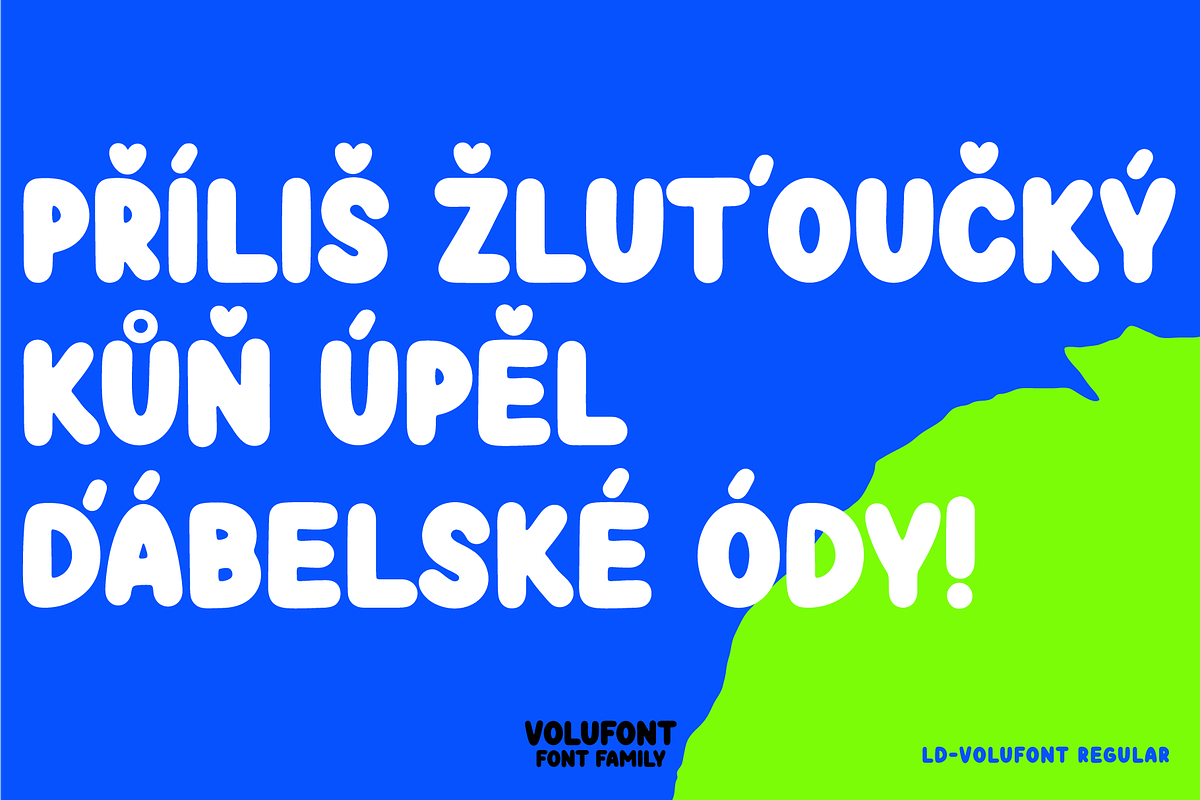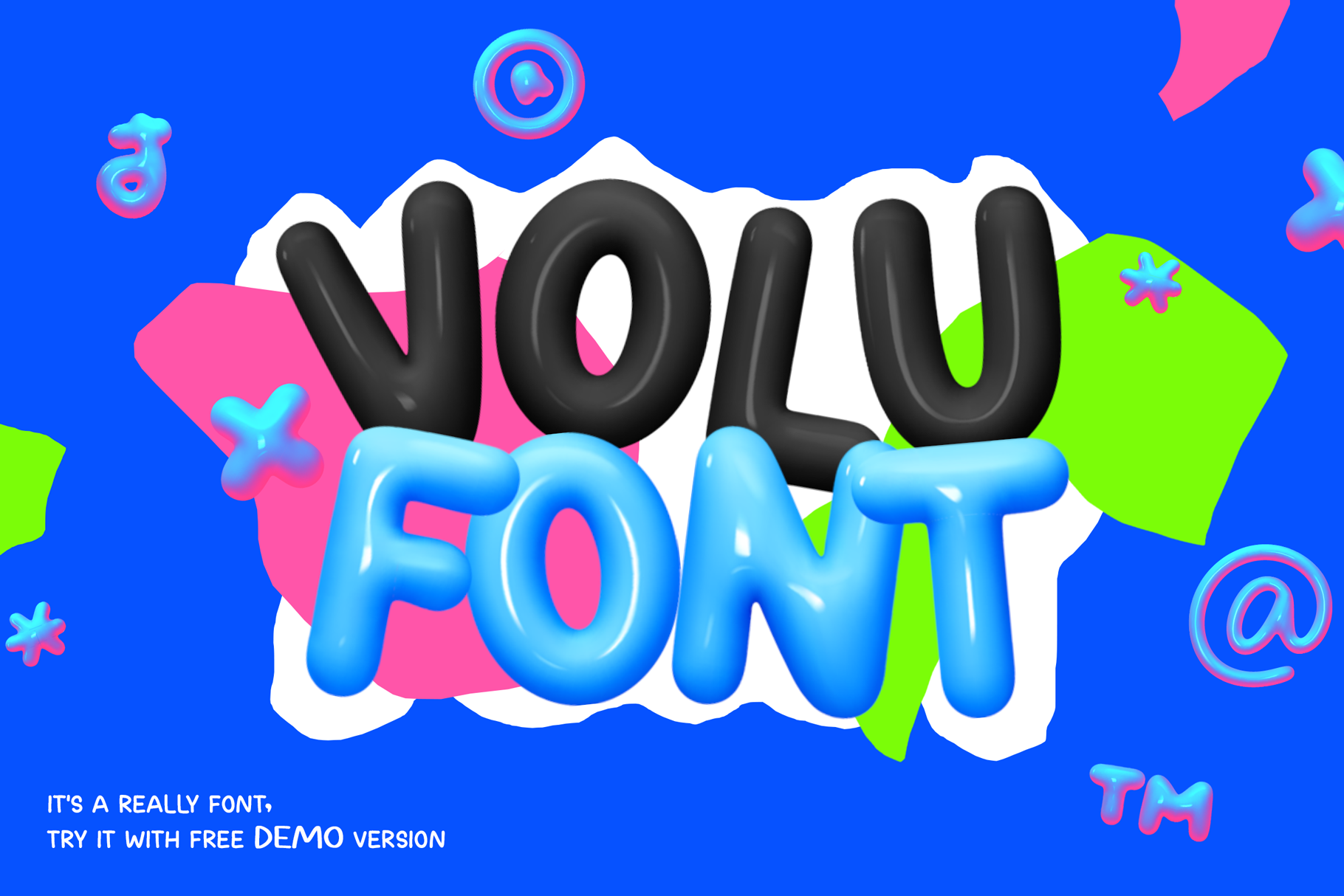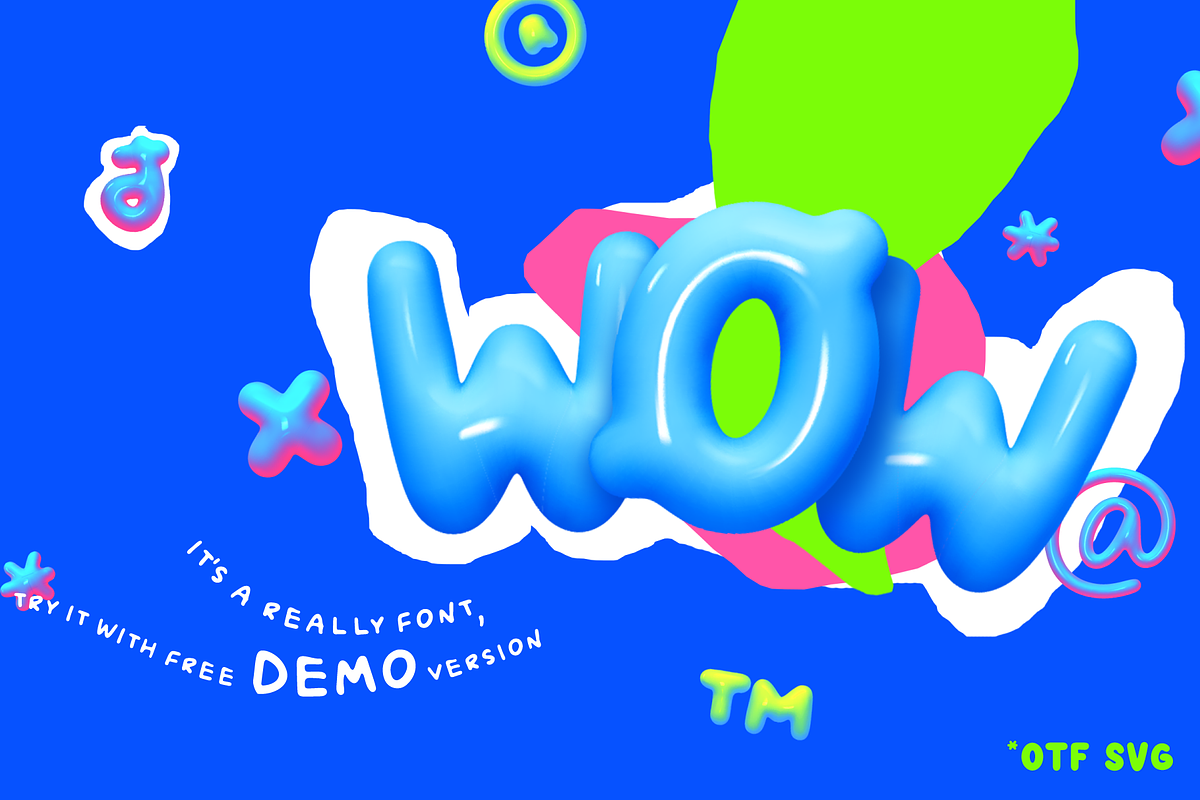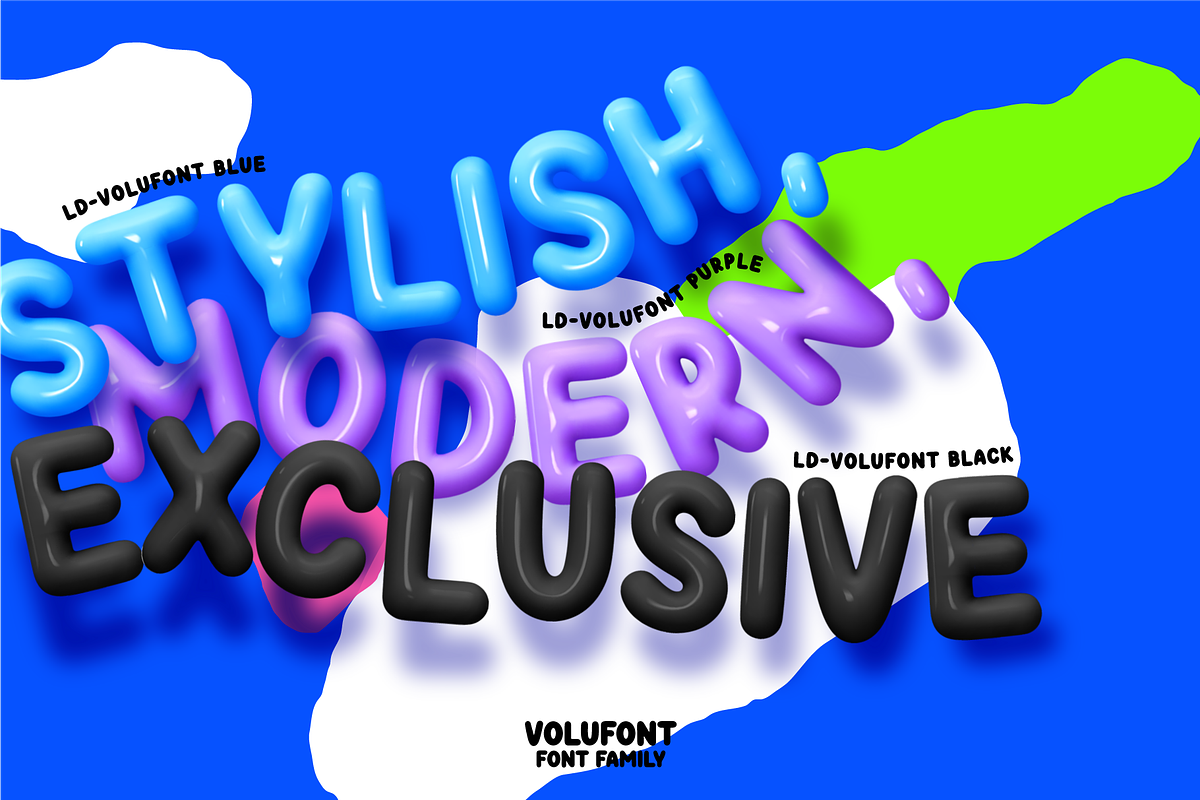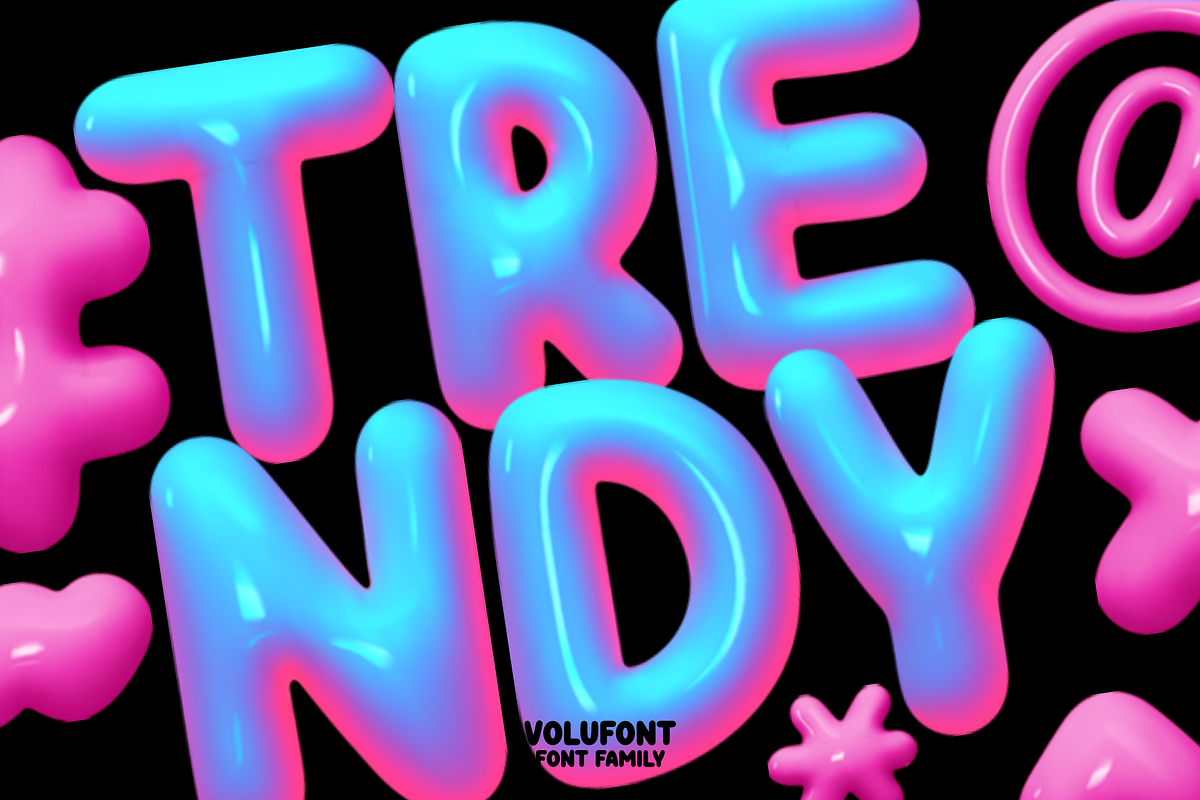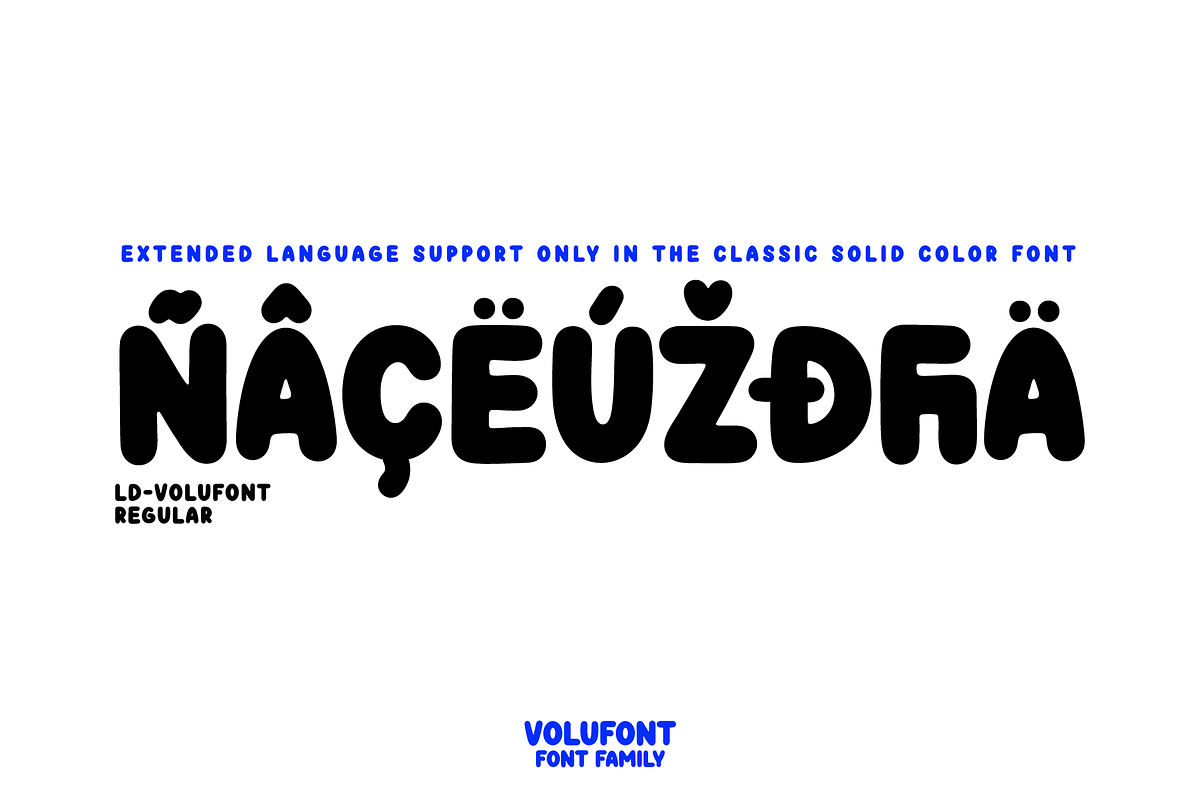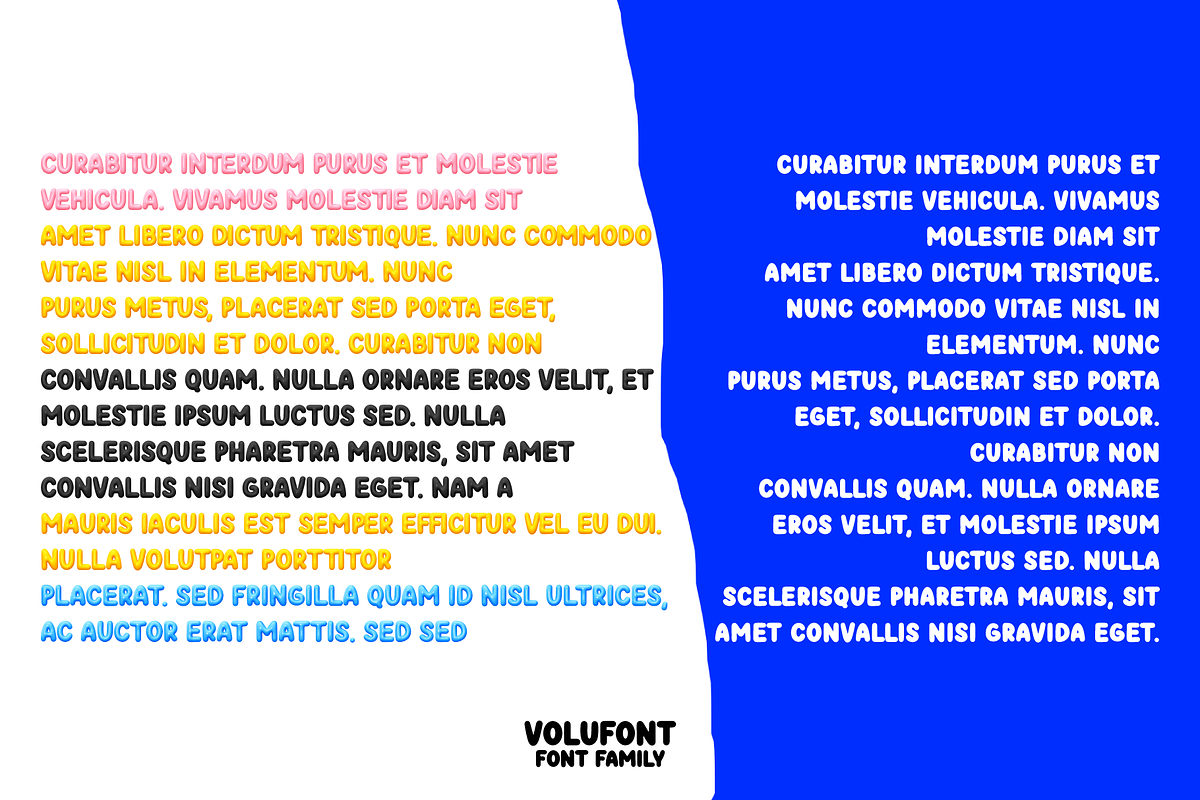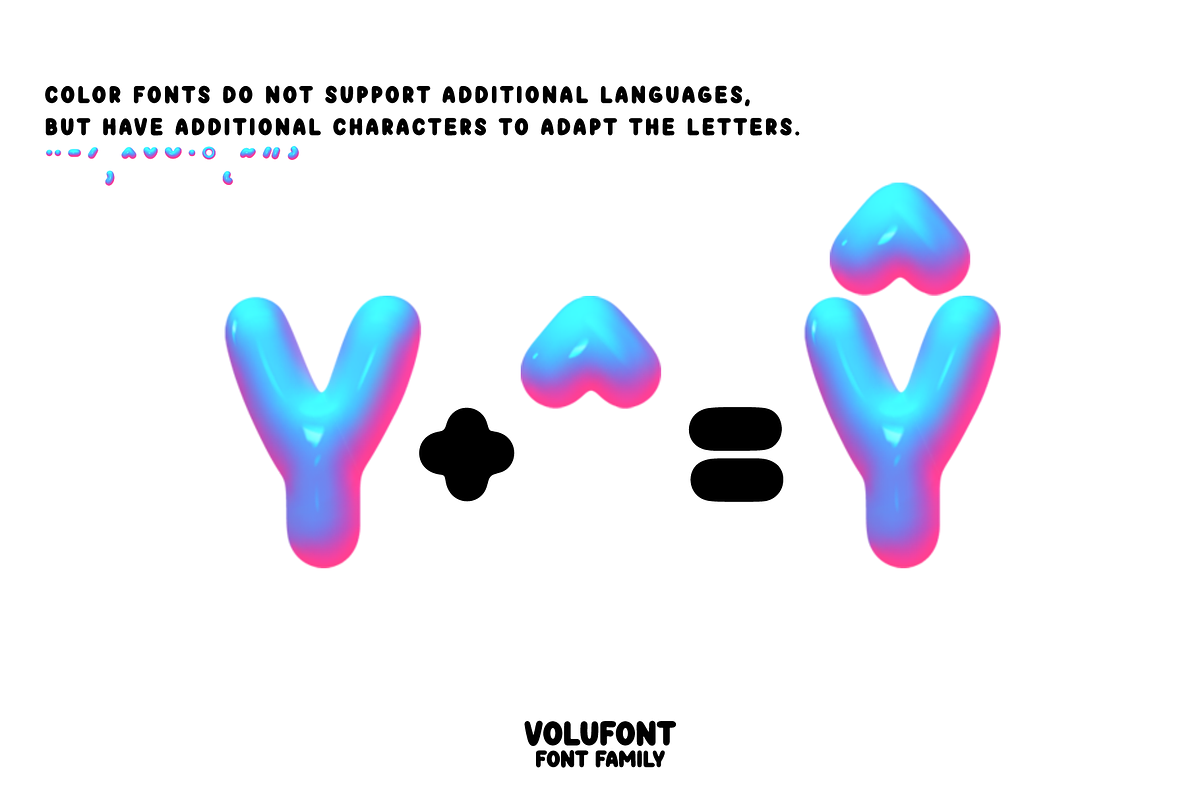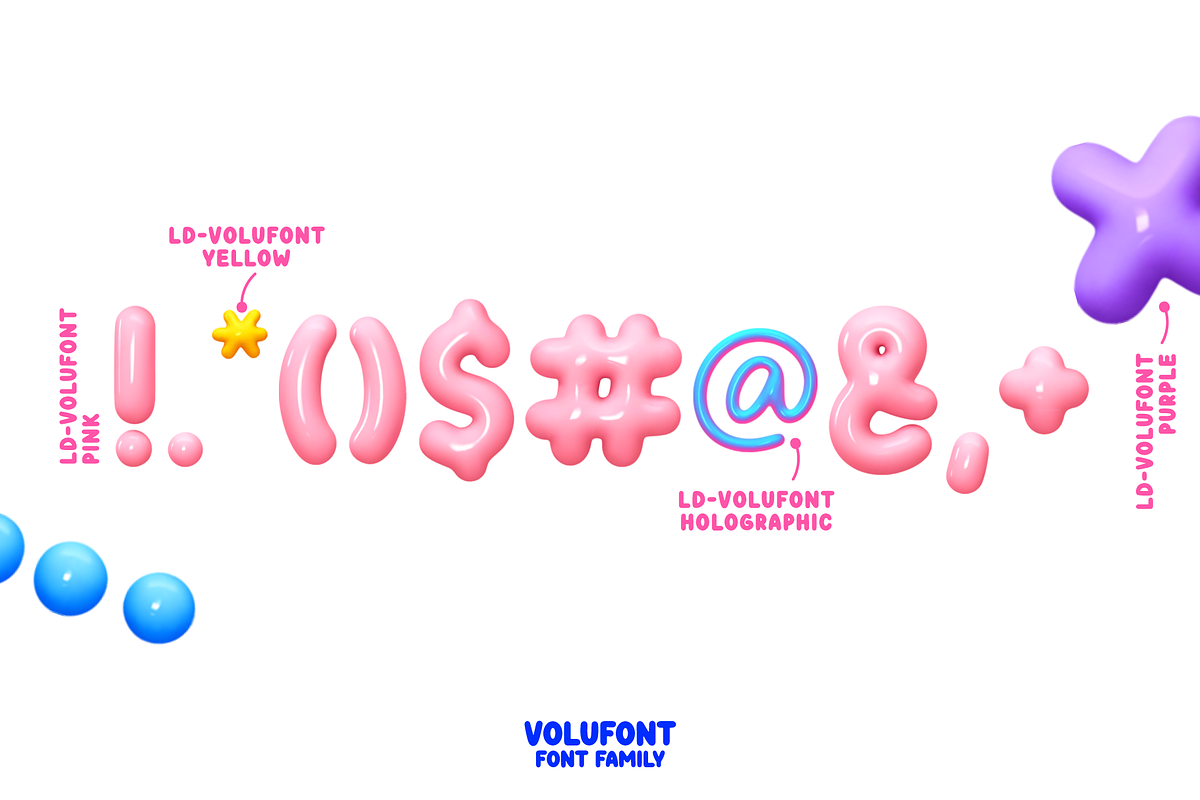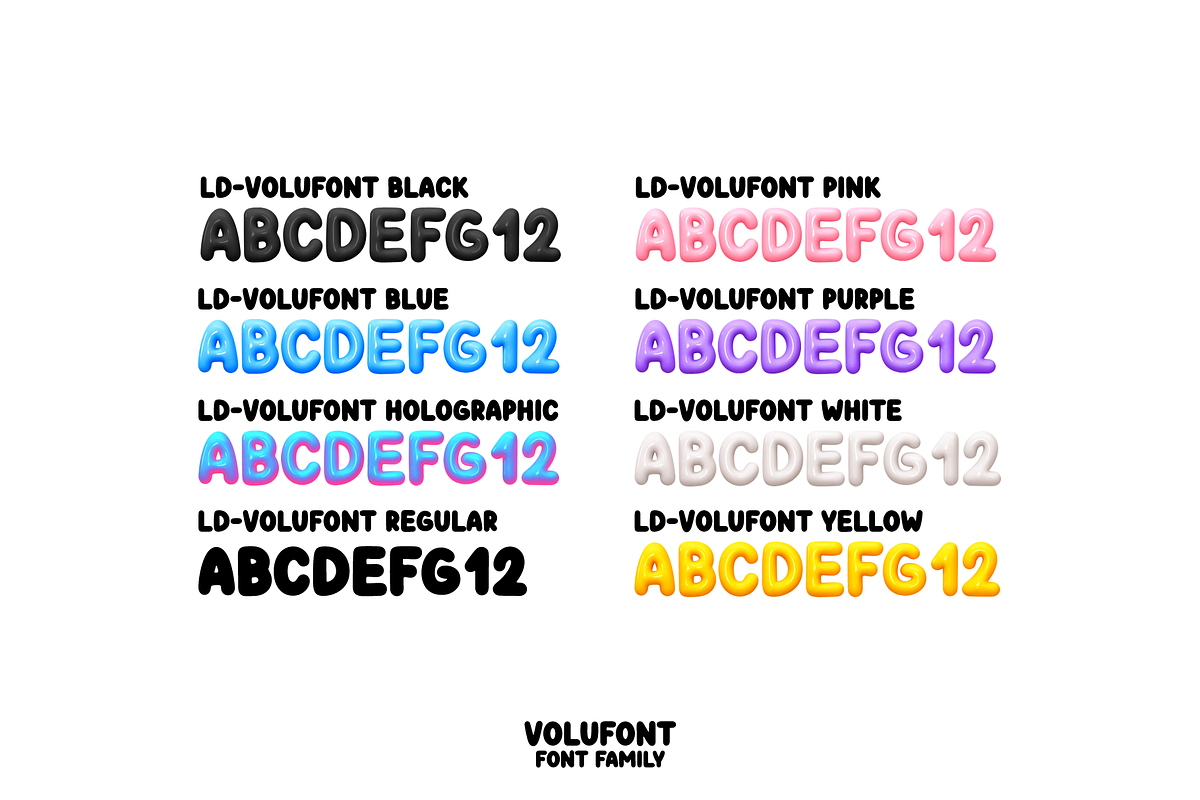
VOLUFONT. 3D OTF SVG Fonts
Explore an enchanting world with the unique color 3D font family VOLUFONT. Each letter is created with true three-dimensional volume. Emitting a glossy plastic sheen, these typefaces seamlessly combine modern aesthetics with on-trend designs.
Whether it's eye-catching headlines, prominent logos, or compelling visual content. The balanced volume of each letter creates a mesmerizing effect that catches the eye and leaves a lasting impression.
Take your designs to the next level with the amazing Volufont, a font family that goes beyond the ordinary, giving your creations a modern touch.
Don't miss the opportunity to bring your ideas to life with 3D letters that will not only grab attention but also stay in your audience's memory. With this family of fonts, you're not just a designer - you're a creator of unique, professional designs.
- Real Plastic effect
- Ability to adapt 3D letters to other languages
- Kerning